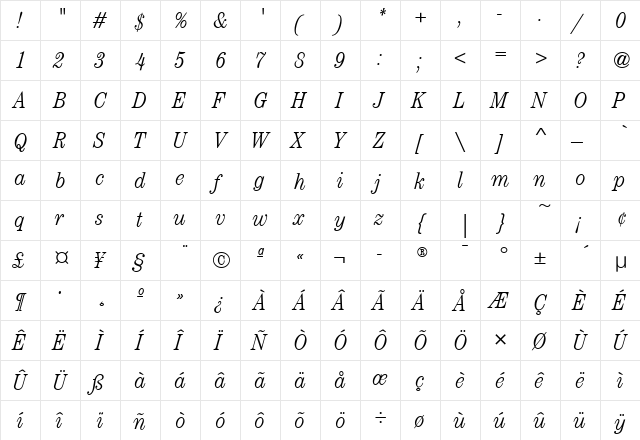
CenturyCdITC Light Italic
Design Context for CenturyCdITC Typeface
CenturyCdITC is a composed and adaptable typeface that performs quietly and consistently across a wide range of design contexts. The dynamic lean of this cut emphasises speed and emphasis in any layout. The delicate stroke weight brings airiness and refinement to layouts.
Pro Tip: Use CenturyCdITC for emphasis, pull quotes, and subheadings where its slanted energy can add rhythm to the layout.